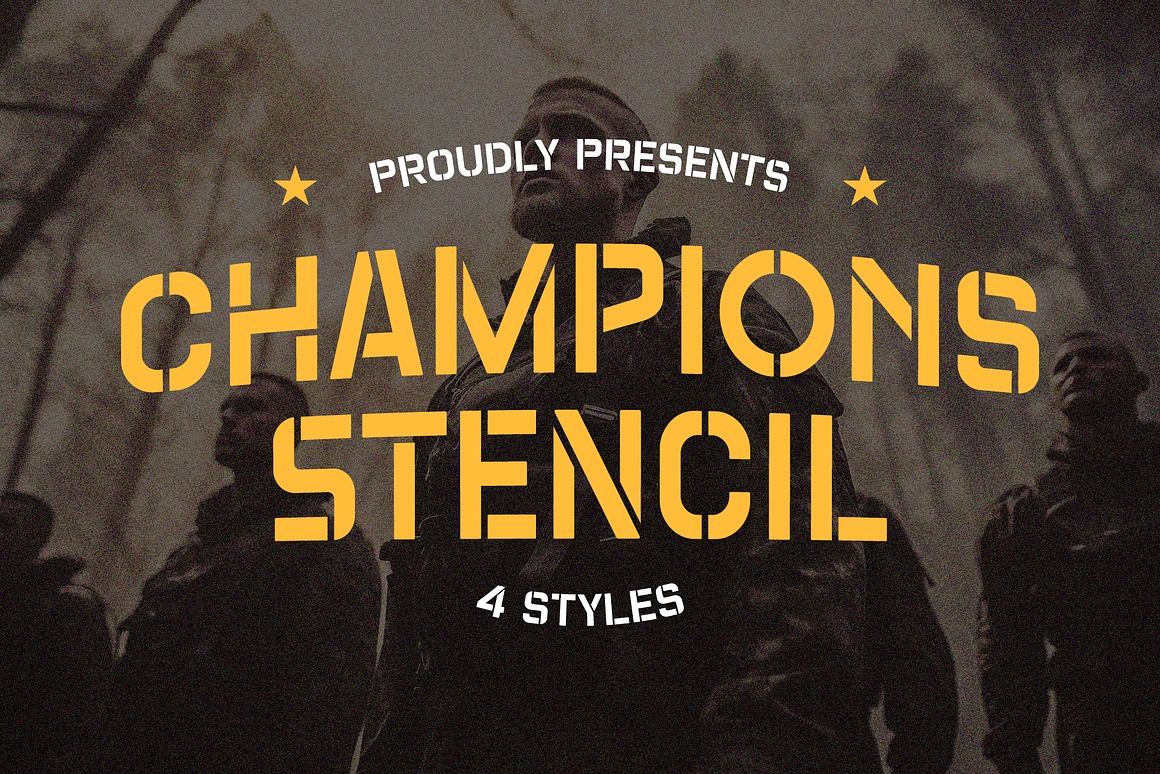
Champions Stencil Font
About Champions Stencil
Champions Stencil is a bold modern stencil font with distinctive intersecting cuts—blending sporty energy with military precision. Its geometric construction offers a clean and structured look while still standing out with confident, rugged charm.